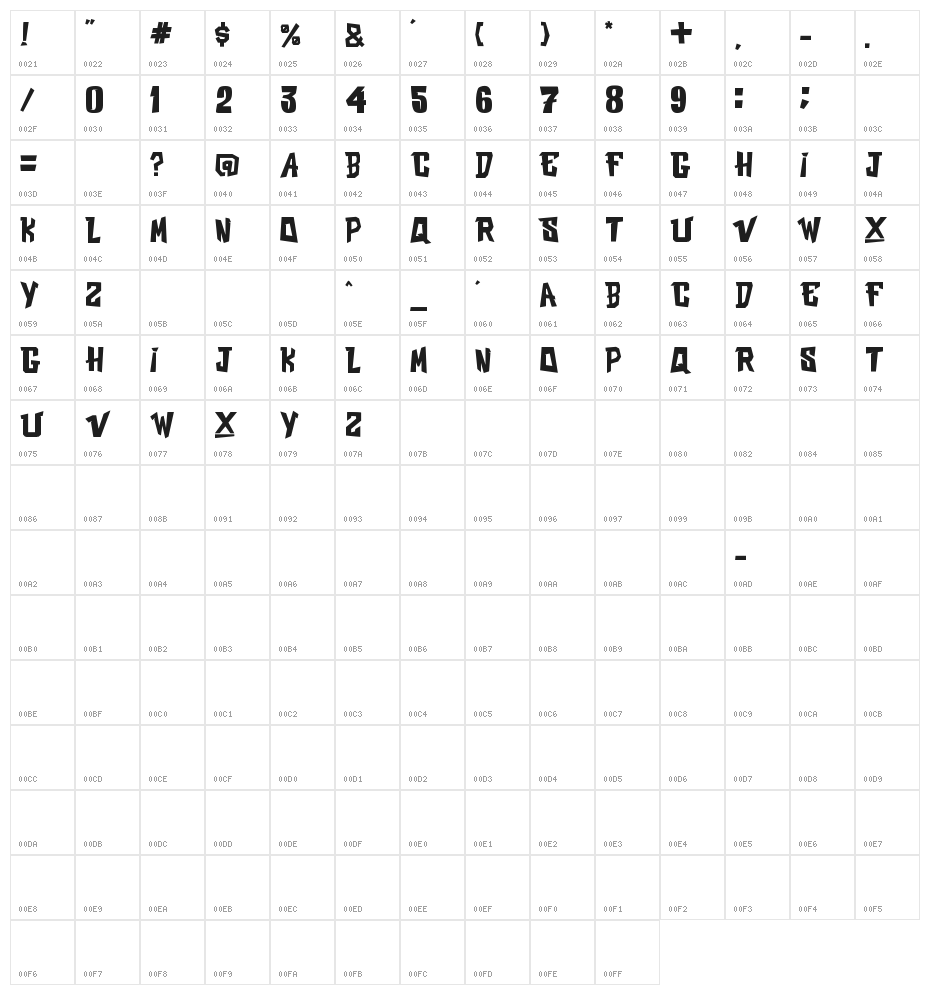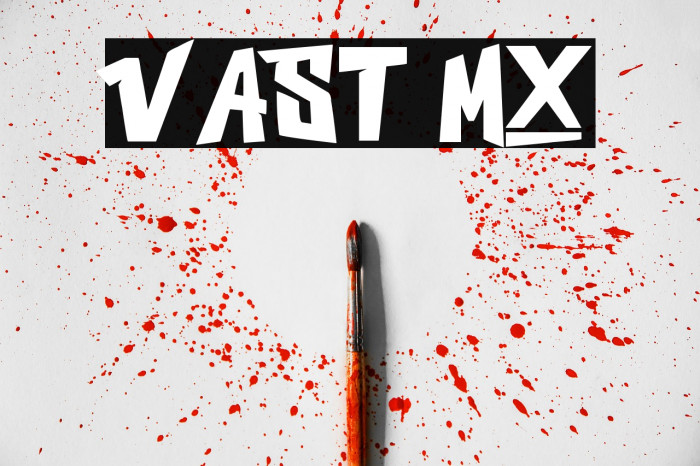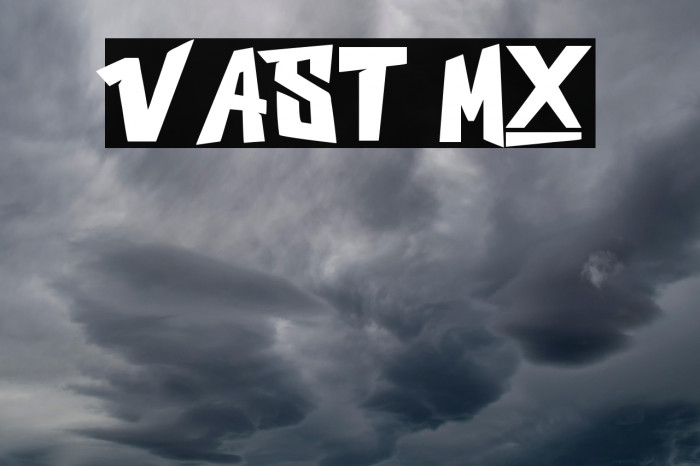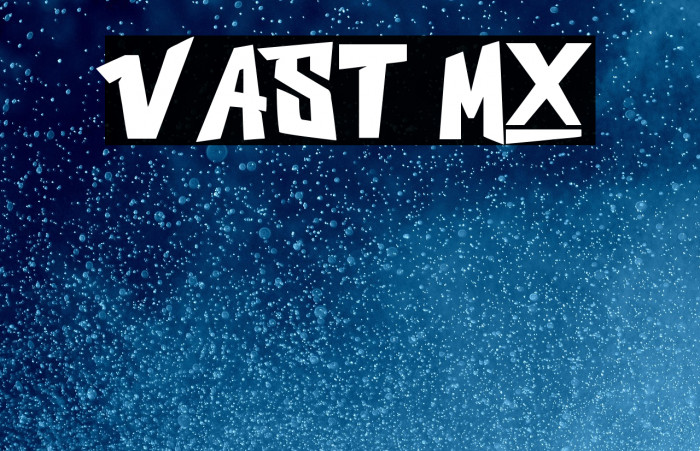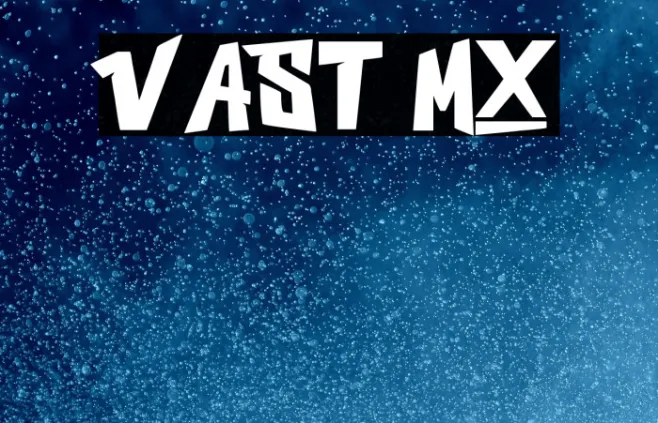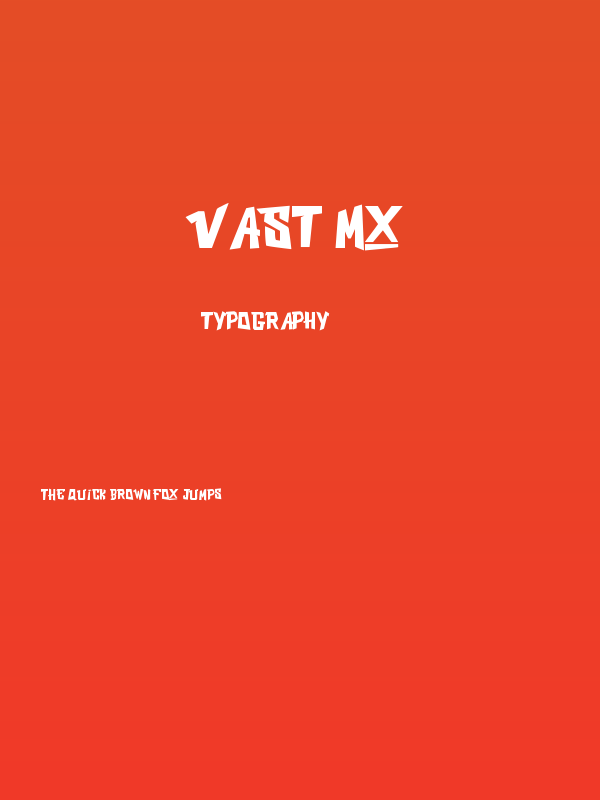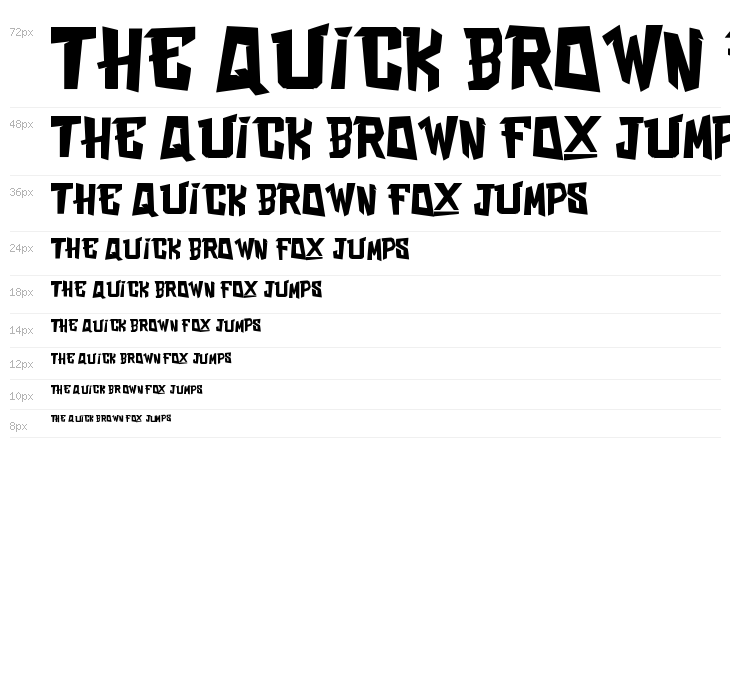
VAST MX Font
VAST MX Description
This font features a bold and edgy design with sharp, angular lines and a dynamic, energetic appearance. The characters are heavily stylized, with a distinct geometric influence that gives them a modern and aggressive look. The uppercase and lowercase letters maintain a consistent style, with exaggerated angles and a strong presence. The numbers and special characters follow the same design principles, ensuring a cohesive appearance across all glyphs. This font is ideal for projects that require a bold and impactful visual statement.
| Proposed Projects | Ideal for posters, album covers, video game graphics, and branding that requires a strong, modern aesthetic. |